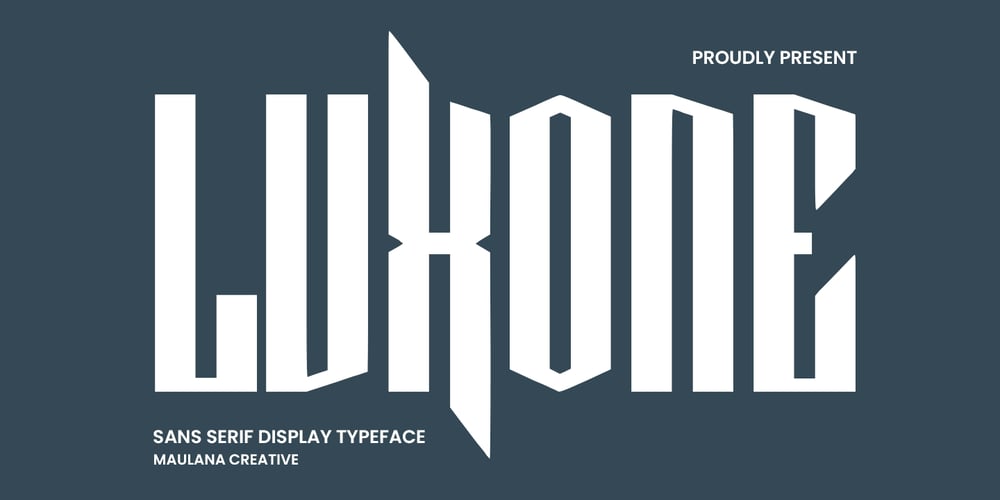
MC Luxone Font Family was designed by Gilang Maulana and published by Maulana Creative. MC Luxone contains 1 styles and family package options. Luxone is a sans serif display font. With bold tall and sharp stroke, fun character with a bit of ligatures and alternates. To give you an extra creative work. Luxone font support multilingual more than 100+ language. This font is good for logo design, Social media, Movie Titles, Books Titles, a short text even a long text letter and good for your secondary text font with sans or serif. Make a stunning work with Luxone font.Cheers,Maulana Creative